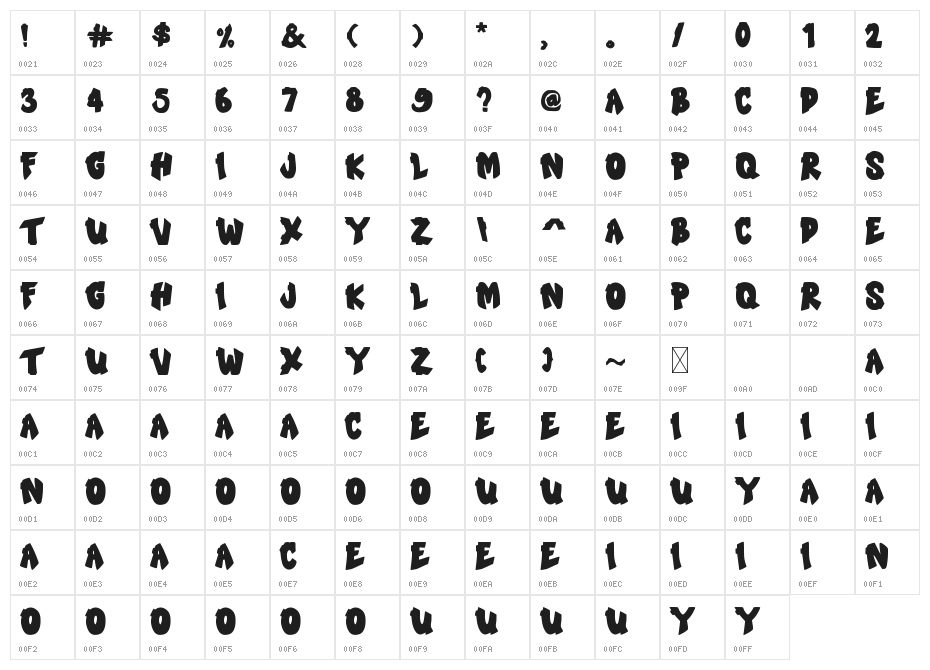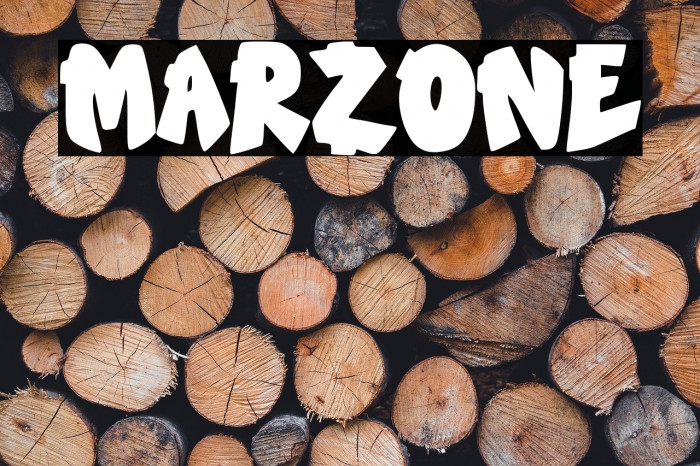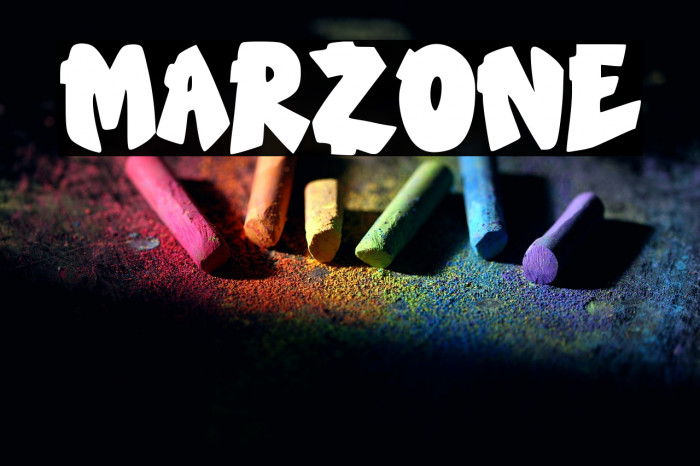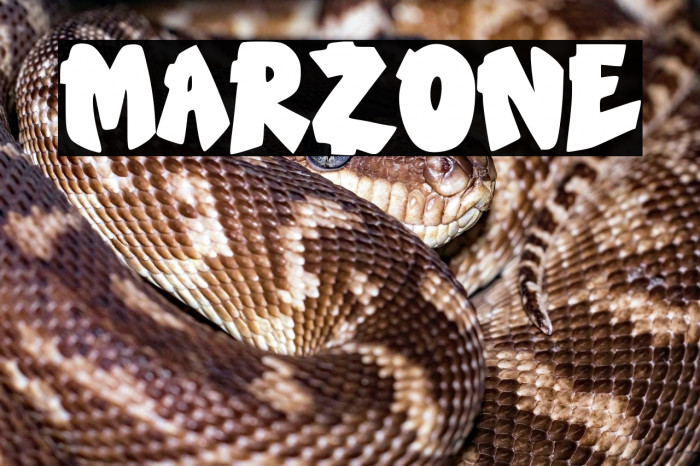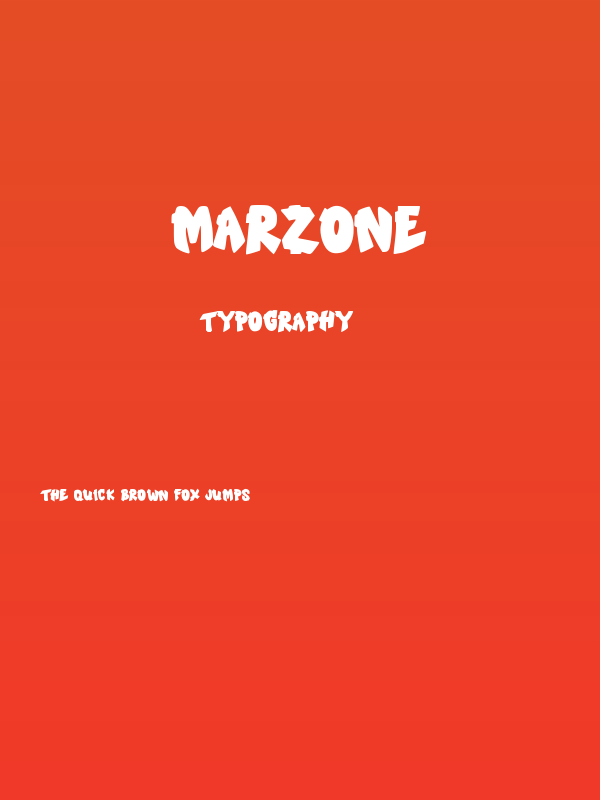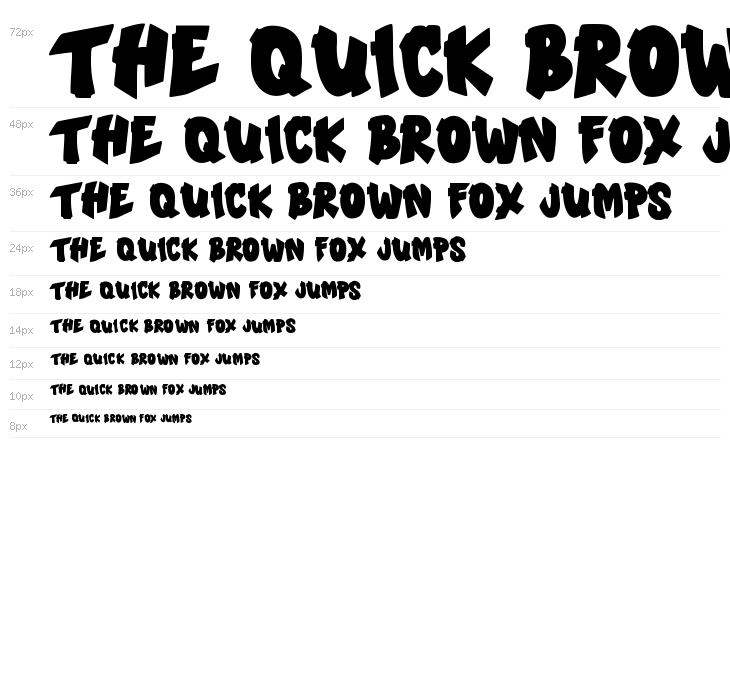
Marzone Font
Marzone Description
This font features a bold and playful style with exaggerated, irregular shapes that give it a dynamic and energetic appearance. The characters are thick and robust, with a slightly uneven baseline that adds to its whimsical charm. The uppercase and lowercase letters maintain a consistent weight, contributing to a cohesive look. The numbers and special characters follow the same playful design, making them stand out. This font is ideal for projects that require a fun and eye-catching aesthetic, such as children's books, posters, and creative branding.
| Overall Style | Playful, Energetic, Whimsical |
| Use Case | Headlines, Posters, Creative Branding |
| Proposed Projects | Ideal for children's books, playful posters, creative branding, and eye-catching headlines. |